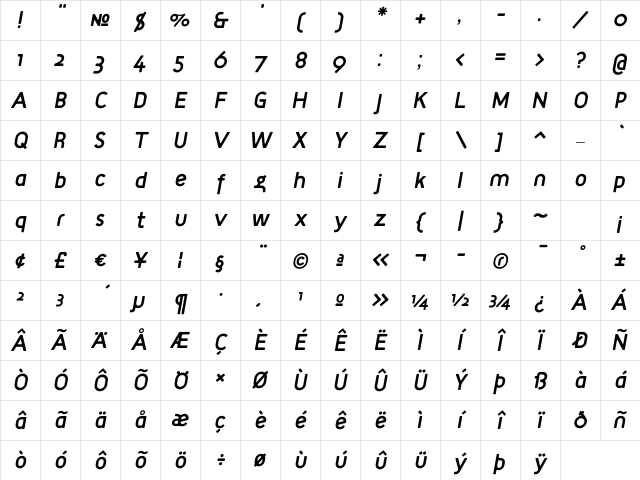
TargetItalic Regular Free Font
TargetItalic Regular
TargetItalic Family
Design Context for TargetItalic
TargetItalic is a composed and adaptable typeface that performs quietly and consistently across a wide range of design contexts. The slanted form adds forward momentum and visual energy.
Pro Tip: Use TargetItalic for emphasis, pull quotes, and subheadings where its slanted energy can add rhythm to the layout.